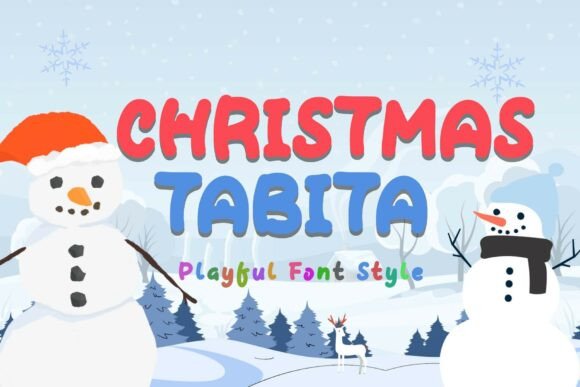
Christmas Tabita: A Playful Holiday Font
Designing for the holidays often requires a delicate balance between festive energy and visual clarity. When you are creating materials that need to communicate warmth, joy, and excitement instantly, the choice of typography becomes your most powerful tool. Enter Christmas Tabita, a display typeface designed specifically to capture the cozy, spirited essence of the winter season. Unlike traditional serif fonts that evoke history or stark sans-serifs that feel corporate, Christmas Tabita offers a unique aesthetic: chunky, rounded, bubble-style letters with thick, clear strokes. This design philosophy ensures maximum visibility while delivering an approachable, sweet charm that resonates deeply with audiences looking for holiday cheer.
The Design Philosophy Behind Christmas Tabita
At its core, Christmas Tabita is built on the principle of friendliness. The font features soft shapes and a slightly bouncy baseline that mimics the natural rhythm of hand-lettered signage found on village storefronts during December. These characteristics are not merely decorative; they serve a functional purpose in communication design. The thick strokes provide excellent legibility even at smaller sizes or when viewed from a distance, making it a practical choice for various media formats.
What sets this typeface apart in a crowded market of holiday fonts is its lack of clutter. Many seasonal fonts rely heavily on intricate serifs, hanging ornaments, or complex textures that can distract from the message. Christmas Tabita strips away the unnecessary details, focusing instead on the "bubble" quality of the characters. This creates a sense of volume and playfulness without sacrificing readability. For designers, this means you can use the font as a standalone headline element without worrying about it competing with other graphic elements like snowflakes, wreaths, or product photography.
Why Chunky and Rounded Matters
The decision to use rounded, bubble-style letters is rooted in psychological design principles. Soft edges and circular forms are universally perceived as safe, welcoming, and non-threatening. In the context of the holidays, where the goal is often to evoke feelings of comfort and community, these shapes align perfectly with the desired emotional response. The "chunky" nature of the font adds weight to the text, giving headlines a presence that feels substantial yet fun. It is a visual representation of the "cozy excitement" mentioned in its descriptionβa font that looks warm enough to wrap in a blanket but energetic enough to jump into a snowball fight.
Creative Applications for Seasonal Projects
The versatility of Christmas Tabita extends far beyond simple greeting cards. Its robust structure allows it to adapt to a wide range of creative projects, from digital marketing campaigns to physical print materials. Here are several practical ways creators and business owners can leverage this typeface to enhance their holiday designs.
- Festive Party Invitations: The playful nature of the font makes it ideal for invitations to children's parties, family gatherings, or office holiday events. Pair the font with bright, contrasting colors like red, green, and gold to create an immediate sense of occasion.
- Children's Media and Books: Because of its high visibility and friendly shapes, Christmas Tabita is perfect for titles in children's books, educational worksheets, or activity sheets. It engages young readers who might be intimidated by more formal typefaces.
- Holiday Event Banners: Whether for a local market, a charity drive, or a store sale, the font's thickness ensures that event details are readable from a distance. Use it for main headlines and pair it with a simpler sans-serif for body text to maintain hierarchy.
- Seasonal Posters and Signage: Create eye-catching posters for cafes, schools, or community centers. The bouncy baseline adds a dynamic quality that draws the eye, making static posters feel more alive and inviting.
Adapting the Font for Different Audiences
While Christmas Tabita has a distinct personality, it is not limited to a single demographic. Skilled designers can adapt its application to suit different goals and audiences, ensuring the message lands effectively regardless of the target group.
For Small Business Owners
If you run a small business, your holiday marketing needs to stand out in a sea of generic templates. Using Christmas Tabita for your social media graphics or email subject lines can inject a dose of winter sweetness into your brand voice. However, consistency is key. Do not overuse the font; reserve it for headlines and key calls to action. For example, use it to announce a "Holiday Sale" or "Winter Workshop," but keep your terms and conditions or detailed descriptions in a neutral, easy-to-read font. This contrast highlights the special nature of the promotion while maintaining professional credibility.
For Educators and Publishers
Educators looking to make learning fun during the winter break can utilize this font for classroom decorations, reading lists, or project titles. The approachable style reduces anxiety and encourages engagement. Publishers of children's content should consider using Christmas Tabita for chapter headers or pull quotes within a story. The font acts as a visual cue that signals a shift in tone or a moment of lightheartedness within the narrative.
For Freelancers and Marketers
Marketers and freelancers often juggle multiple client brands. Christmas Tabita serves as a reliable asset for clients who want to appear accessible and community-focused. When pitching ideas, suggest using this font for campaign assets that require high emotional resonance. It works particularly well for lifestyle brands, toy companies, and family-oriented services. The key is to present it as a strategic choice for building connection rather than just a decorative add-on.
Whether you are designing a poster for a school play, an invitation for a corporate party, or a banner for a local shop, this font offers a reliable way to convey warmth and excitement. By understanding its strengths and applying it with thoughtful consideration for hierarchy and audience, you can transform ordinary projects into memorable holiday experiences. Step into a snowy wonderland with confidence, knowing that your typography is working as hard as your visuals to spread the joy of the season.